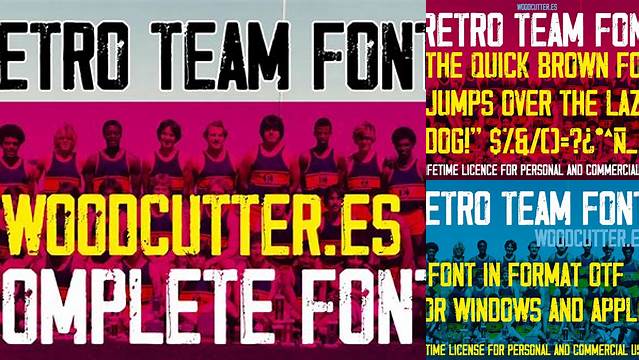
Free Retro Fonts: Cool Styles For Your Designs
Hey guys, are you ready to dive into the awesome world of retro fonts? These fonts are super cool, and they bring that classic, vintage vibe that's been making a massive comeback lately. They're perfect for everything from websites and logos to posters and social media graphics. If you're looking to add a touch of nostalgia and personality to your projects, then you've come to the right place! This guide is all about free font retro designs and how you can use them effectively. Let's get started and explore the best options out there, along with tips on how to incorporate them into your designs.
What Makes a Font 'Retro'?
So, what exactly makes a font 'retro'? Well, it's all about capturing the essence of past eras. Think of the bold, playful styles of the 1950s diner signs, the groovy lettering of the 1960s psychedelic posters, or the sleek, geometric fonts of the 1980s. Retro fonts often draw inspiration from these iconic periods, incorporating elements like thick serifs, rounded shapes, and unique letterforms that feel both familiar and fresh. But, more than just the visual elements, it's about the feeling they evoke. Retro fonts transport us back in time, sparking a sense of nostalgia and a connection to history. These fonts can add a touch of personality and character that makes your design stand out. They can also be used to create a specific mood, such as a sense of fun, playfulness, or sophistication.
Retro fonts are not just throwbacks; they are innovative. They take the design styles of previous decades and reinvent them in modern ways. They might blend elements from different eras, create a new twist on a classic design, or simply offer a modern interpretation of a historical font. This means that retro fonts are constantly evolving, reflecting the ever-changing tastes and styles of the design world. This blend of history and innovation is part of what makes these fonts so appealing. They're fun to use, easy to get creative with, and they're always a conversation starter. You'll often find these fonts used in marketing campaigns, branding projects, and creative designs where the goal is to catch the eye of your audience. It's no wonder that retro fonts are so popular, considering the nostalgic connection they have.
Think about how these fonts can be used in your designs. Could you use a bold, playful font for a children's book cover? Or perhaps a sleek, geometric font for a tech company's logo? The possibilities are endless, and a well-chosen retro font can make all the difference. The great thing is that many of these fonts are available for free. You can find a wide selection of awesome free font retro options online, making it easy to explore different styles and find the perfect font for your project. There is no limit to what retro fonts can do for you, from giving your design an authentic vintage feel to making your brand stand out. Don't be afraid to experiment and have fun. After all, the best designs are those that tell a story and connect with your audience on an emotional level. And these fonts are a great way to do just that. The perfect font can elevate your project. Let's dive deeper into how to find and use these amazing fonts effectively!
Finding Free Font Retro Gems
- Behance and Dribbble: These platforms are amazing for design inspiration, and you can often find free fonts shared by designers. Search for keywords like 'free retro font' or 'vintage font download' to see what's available. You can also find some amazing design projects for inspiration. You can also connect with designers and get tips or inspiration for your next design.
When you're searching for free font retro fonts, always check the licensing details. Some fonts are free for personal use only, while others allow commercial use. Make sure you understand the terms of the license before you start using a font in your projects. And be sure to explore different styles and find fonts that match the specific look you're aiming for. Remember, the right font can make or break your design, so take your time and choose wisely. You'll be surprised by what you can find!
Using Retro Fonts Effectively
Okay, so you've found some amazing free font retro fonts – now what? The key is to use them effectively to create visually appealing designs. Here are some tips to help you make the most of these fonts.
- Choose the Right Font for the Job: Not all retro fonts are created equal. Some are better suited for headlines, while others work well for body text. Consider the font's readability, personality, and overall style when making your choice. Make sure your font works with the overall feel of the project. A thick, bold font might be perfect for a poster, while a thinner, more elegant font might be ideal for a logo. Think about the mood you want to create and choose a font that complements that.
Conclusion: Unleash Your Retro Design Potential
Alright, guys, that's the lowdown on free font retro fonts. I hope this guide has inspired you to explore the amazing world of retro typography and to incorporate these awesome fonts into your designs. Remember to check out those awesome resources for finding free fonts, and don't be afraid to experiment. With the right fonts and a little creativity, you can create designs that are both stylish and timeless. Happy designing! Don't hesitate to revisit this guide as you work on your projects. You'll be amazed at what you can create. These fonts are sure to help you make designs that will stand out. Best of luck!